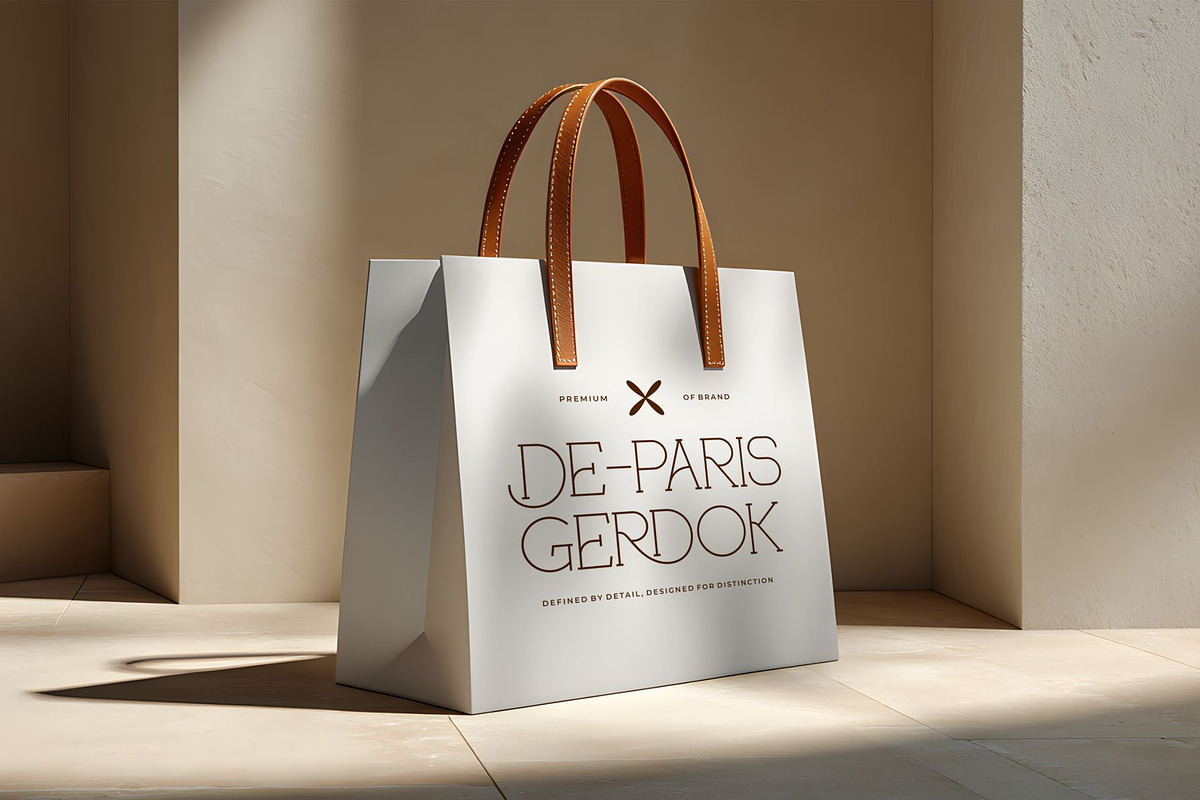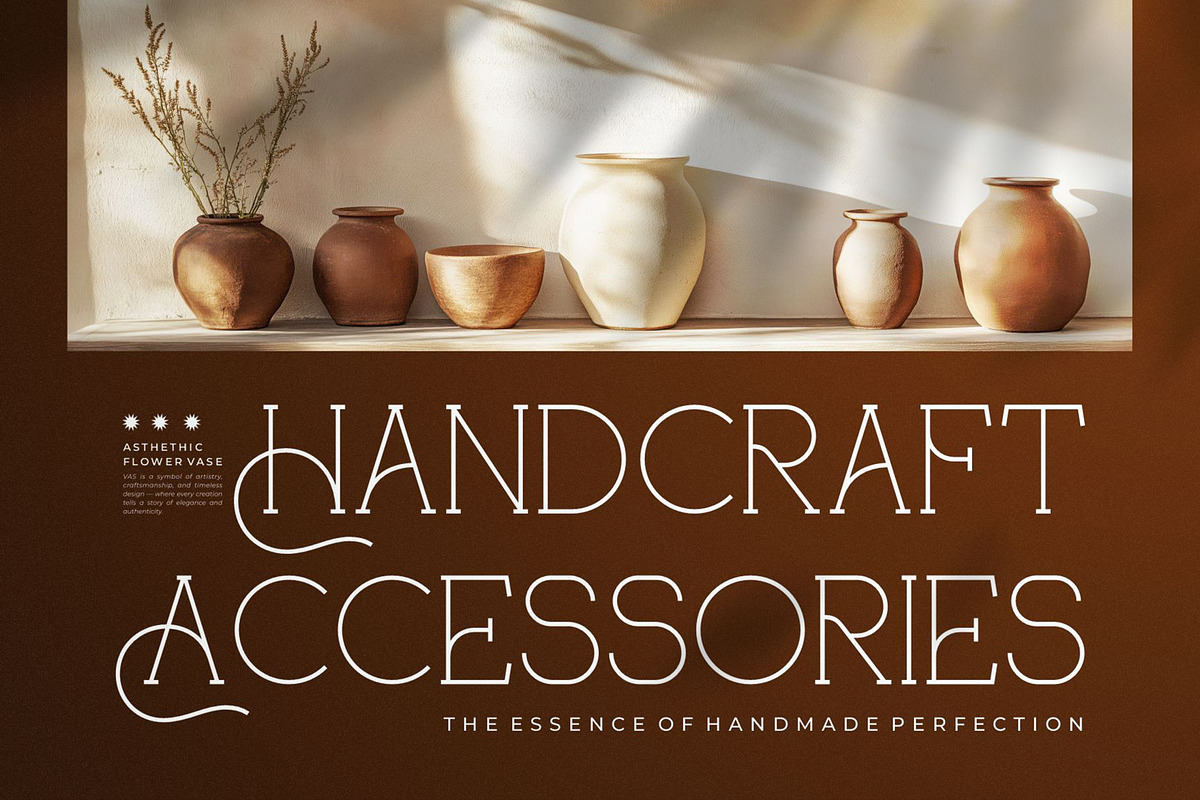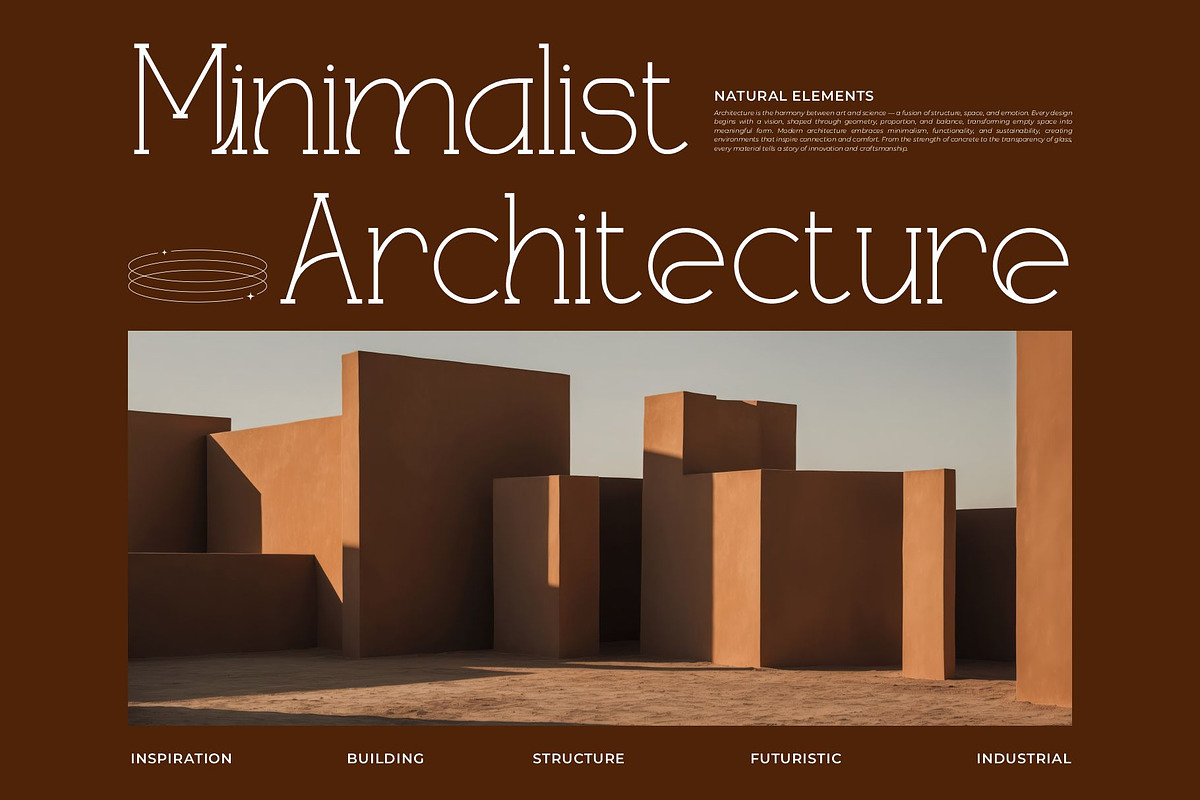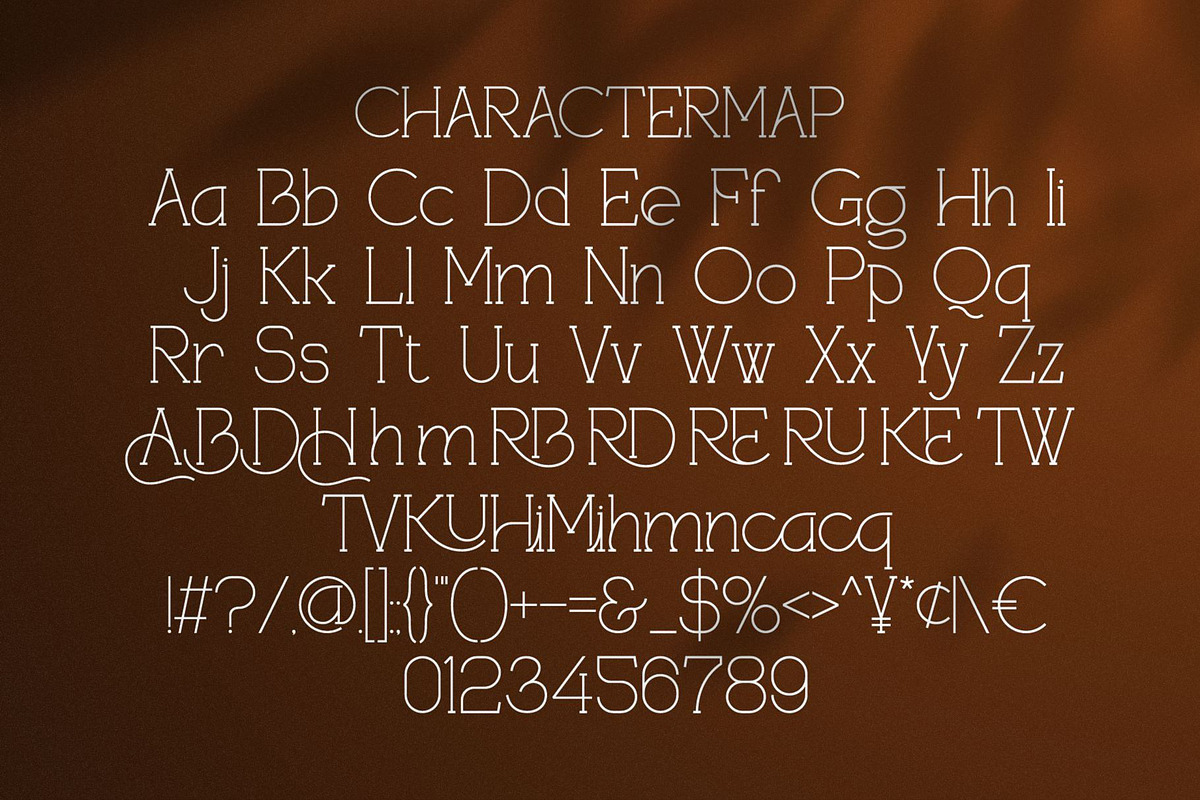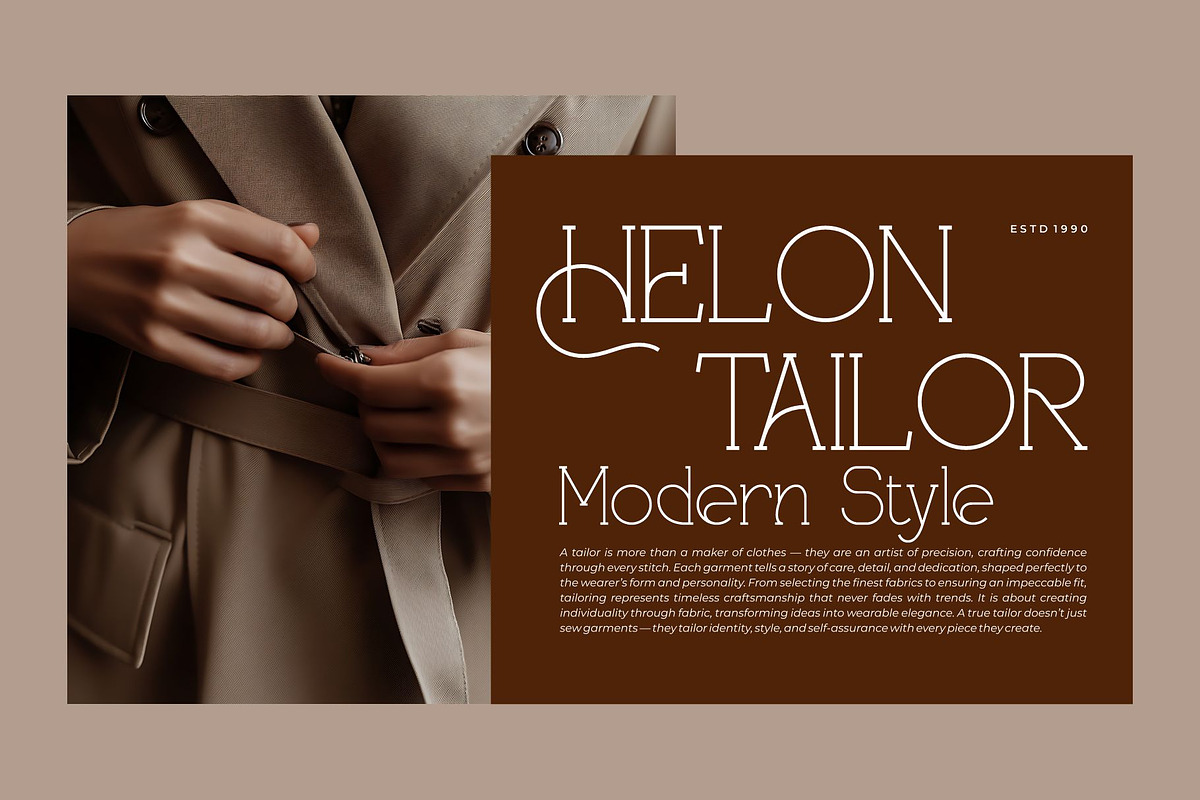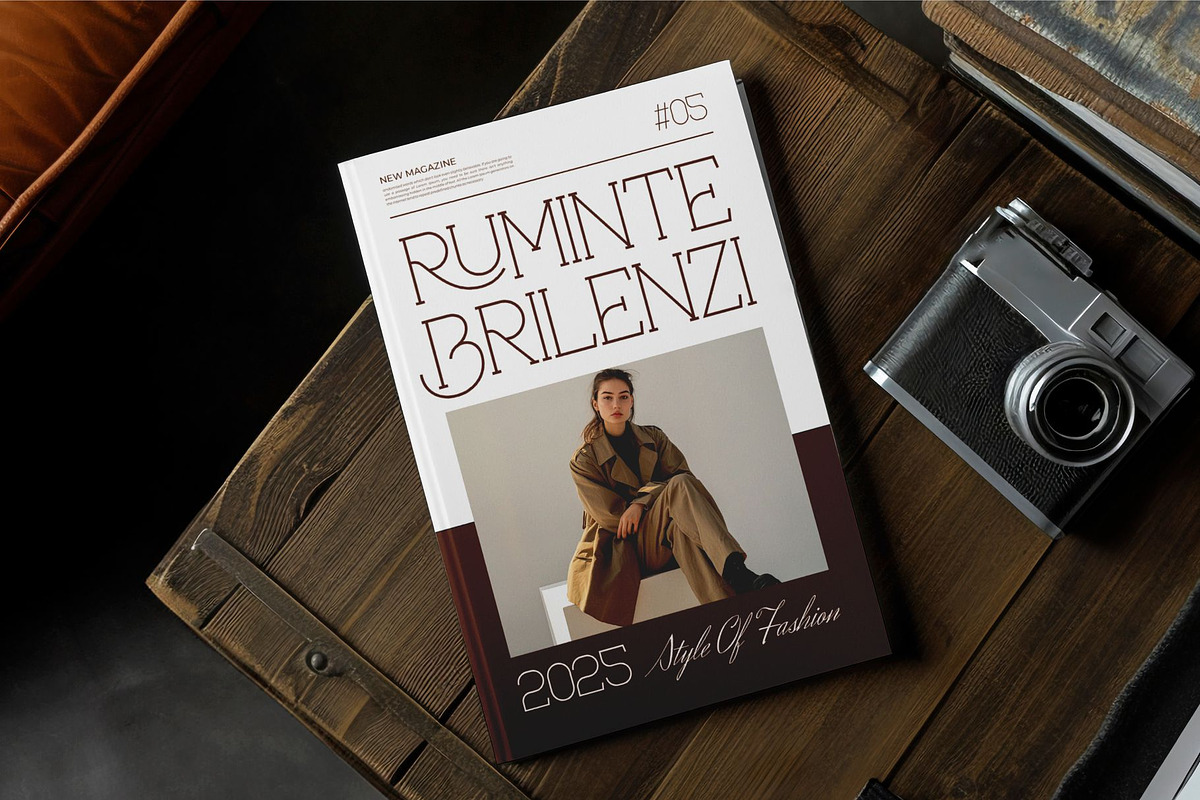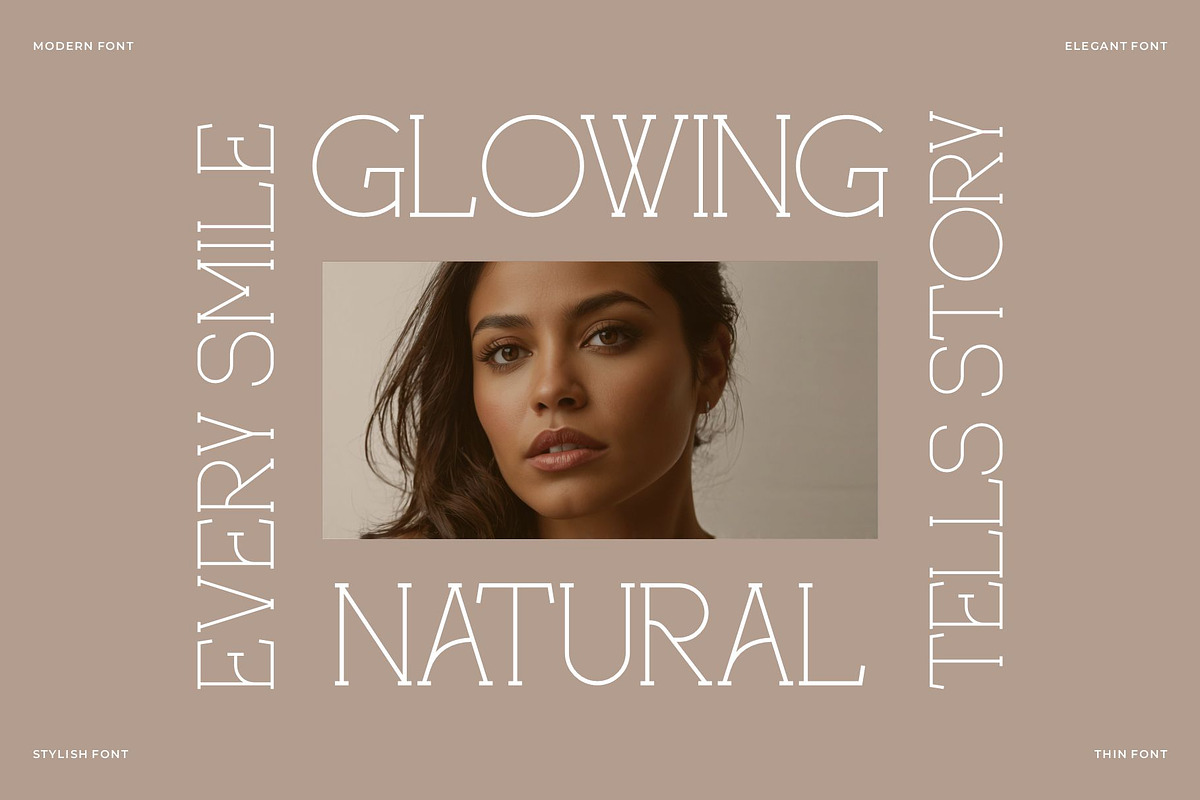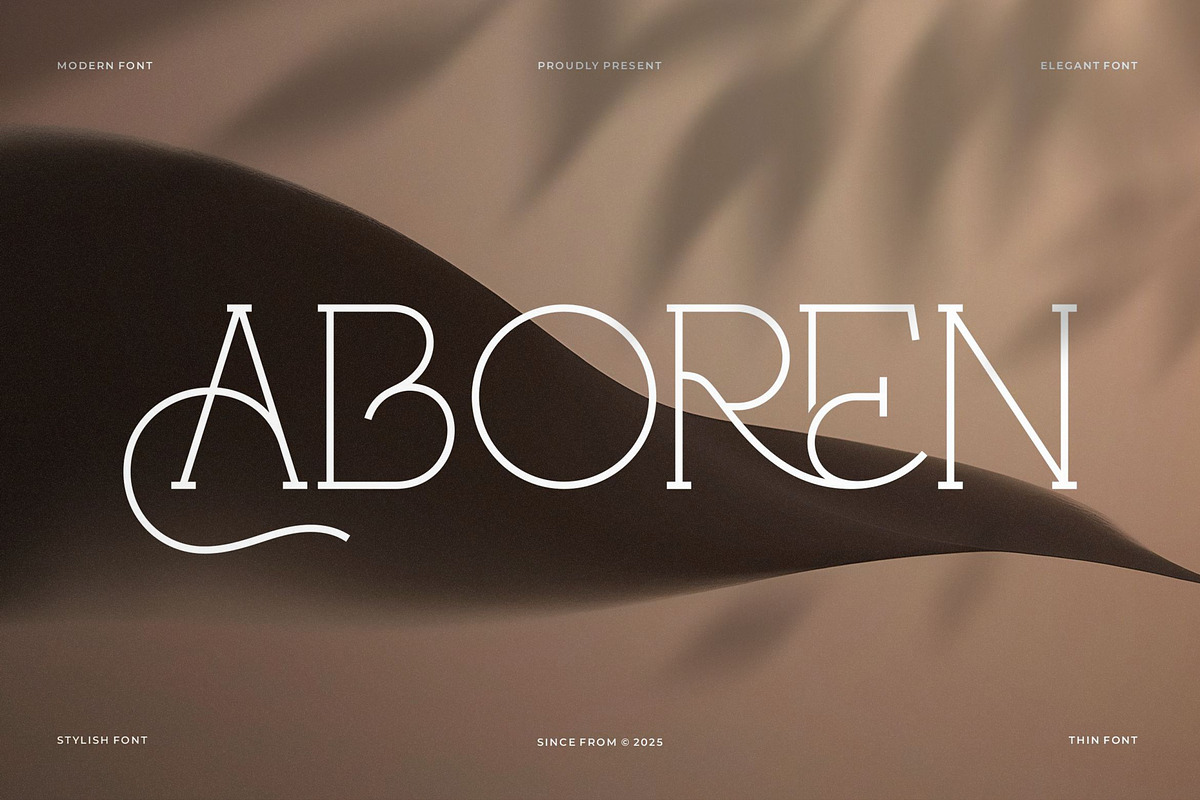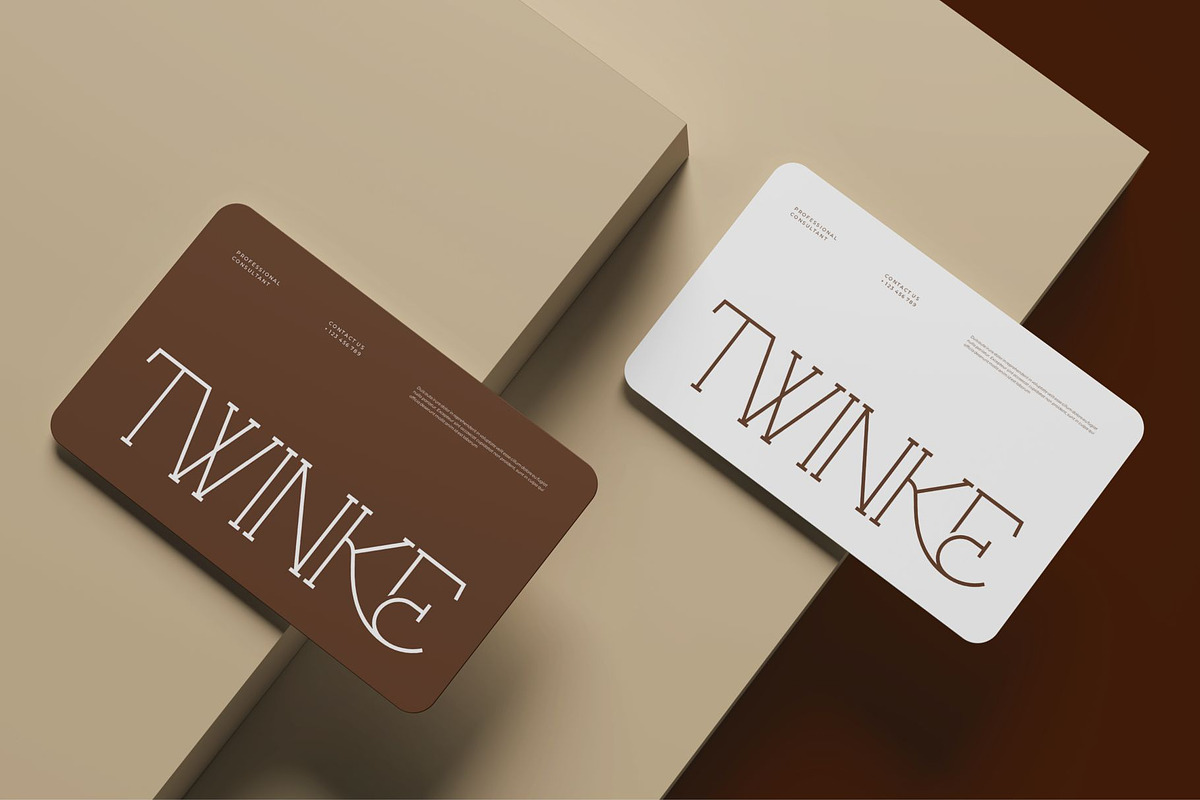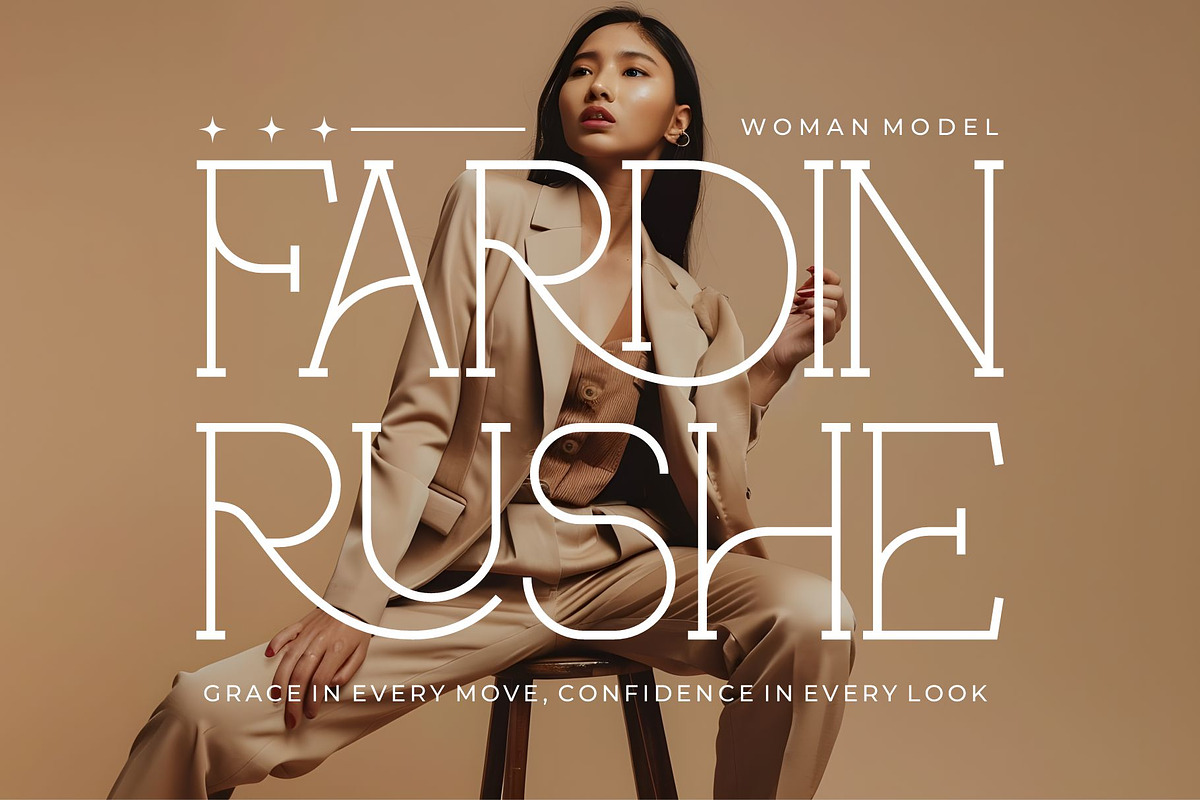
Aboren || Vintage Serif Monoline
Aboren Serif is a vintage and classy monoline font type for all branding and logo designs. This vintage and classy Serif font has a beautiful character. This font is suitable for invitation card designs, cool logos, movie titles, movie names, business cards, book titles, brand names, and various other designs. Aboren Serif is a smooth serif font that exudes sophistication and the moment. Its stylish ligatures make this font a perfect partner for any project.